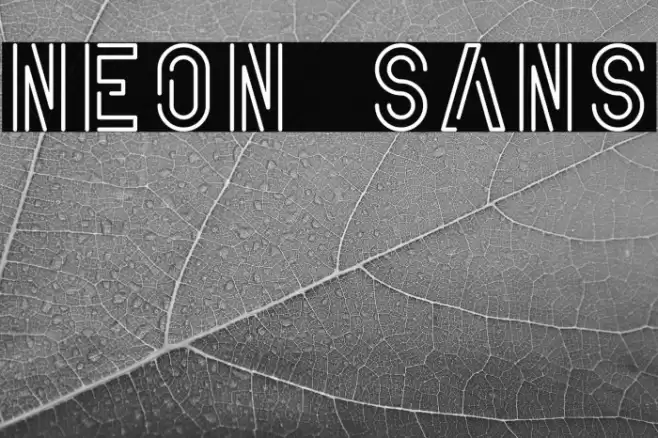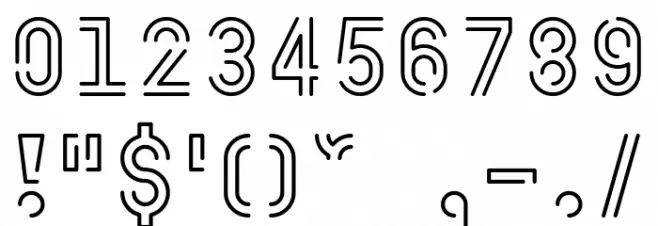
Neon Sans Font
Neon Sans Description
This font features a modern, geometric design with a distinct outline style that mimics the appearance of neon lights. Each character is constructed with clean, straight lines and sharp angles, giving it a futuristic and industrial feel. The uppercase and lowercase letters maintain a consistent height, while the numbers and special characters follow the same design principles, ensuring uniformity across all glyphs. The font's open structure and linear elements make it highly legible, even at smaller sizes, while its unique style adds a touch of creativity and flair.
A modern, geometric outline font inspired by neon lights from Regular fonts.
- Proposed Projects: Ideal for projects requiring a futuristic or industrial aesthetic, such as tech branding, event posters, or digital media.